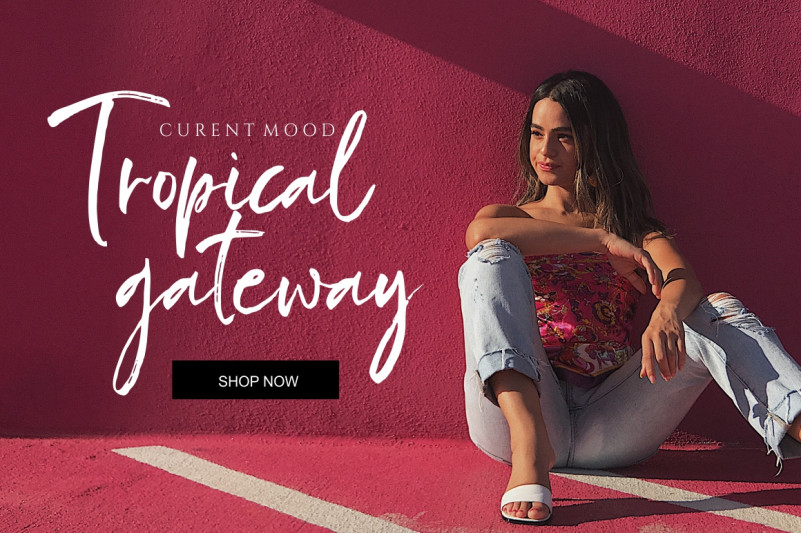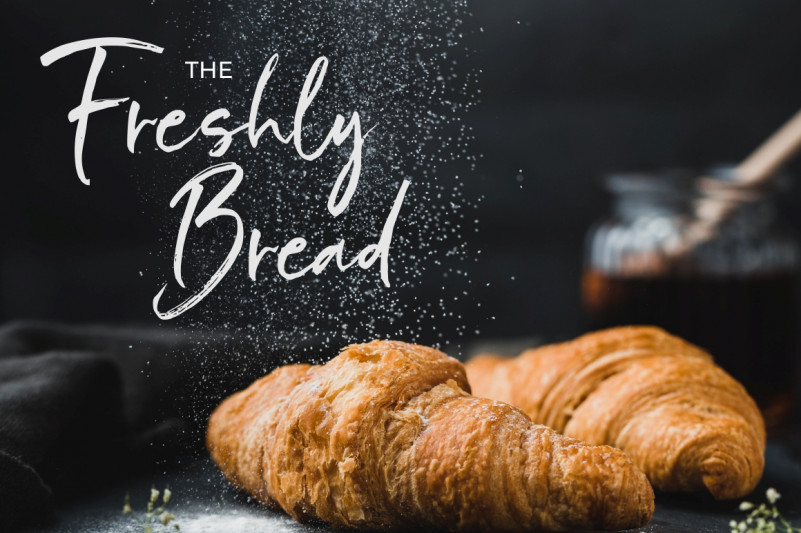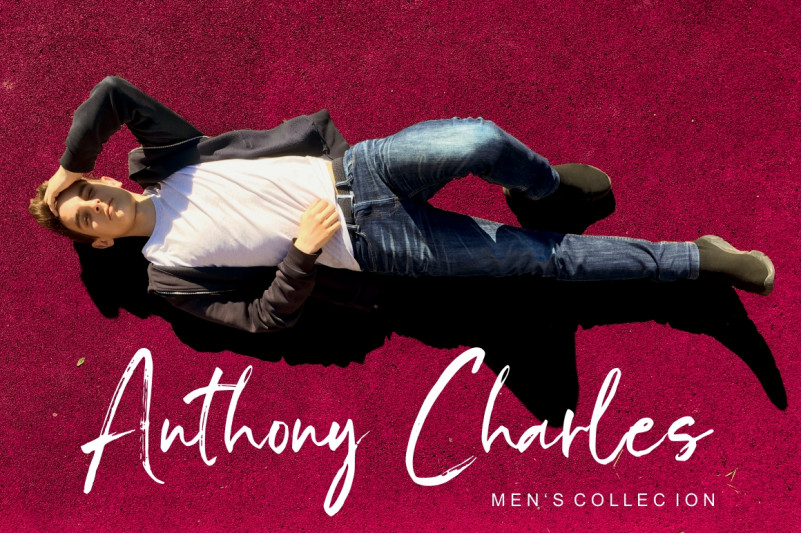
Bombast Brush Font
Is a flowing and adaptable brushed script font that exudes trendiness. This font was particularly crafted for those who need a beautiful and refreshing look to their designs.